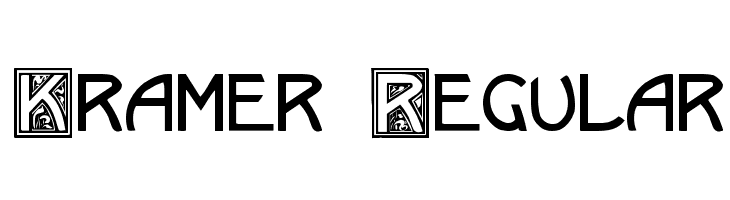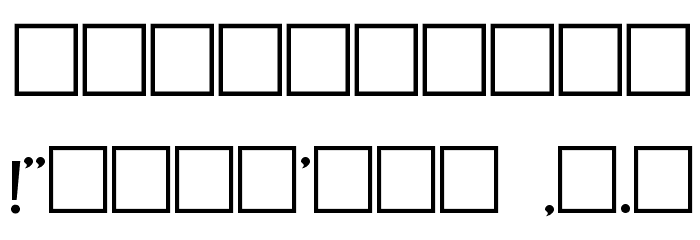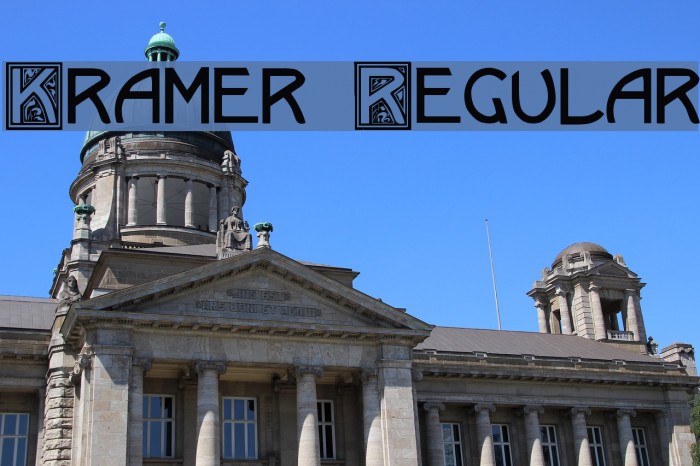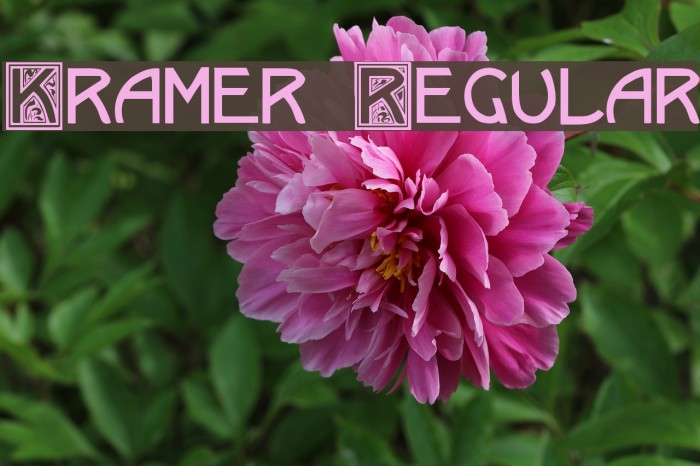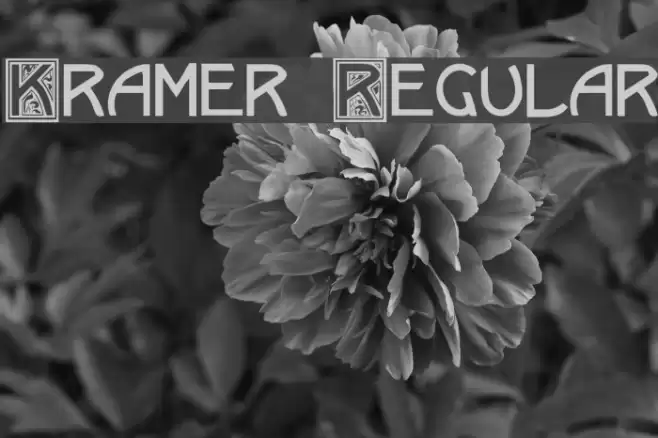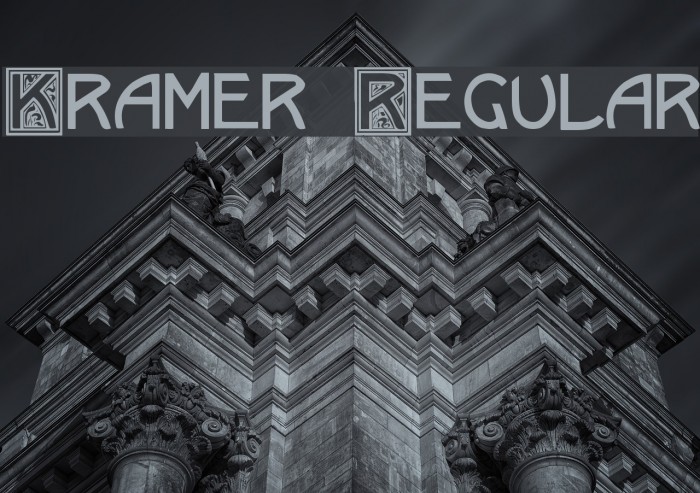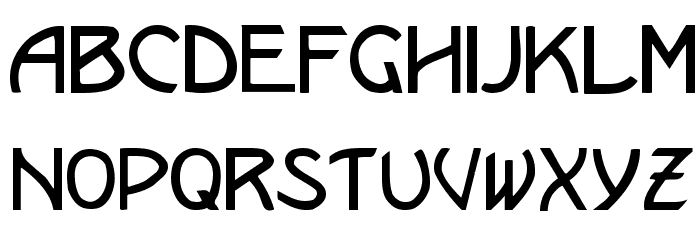
Kramer Regular Font
Kramer Regular Description
This font features a unique combination of decorative and bold elements. The uppercase letters are enclosed in ornate, square frames with intricate patterns, giving them a highly decorative and artistic appearance. The second set of uppercase letters is bold and sans-serif, with a playful and slightly irregular style that adds a whimsical touch. The font lacks lowercase letters and numbers, focusing instead on its striking uppercase design. The special characters are also enclosed in decorative frames, maintaining the overall artistic theme. This font is ideal for projects that require a bold and artistic statement.